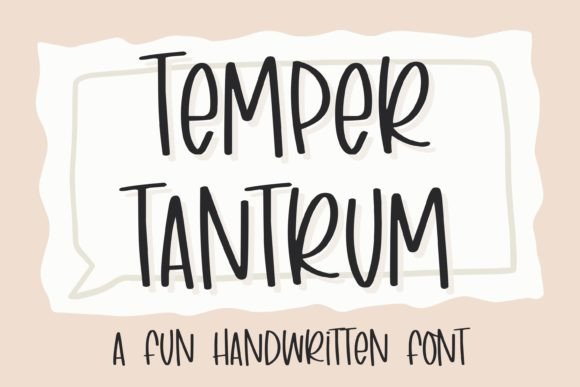
Download Temper Tantrum Font for free! Created by designingdigitals and published by Griffin Dodson, this script font family is perfect for adding a unique touch to your designs.
Introducing Temper Tantrum an energetic and eye-catching handwritten font that adds a fun and playful vibe to any project. With its quirky, irregular lines and dynamic shapes, this font is perfect for youthful branding, posters, and social media graphics. Its unique personality and bold style will make your designs stand out from the crowd.